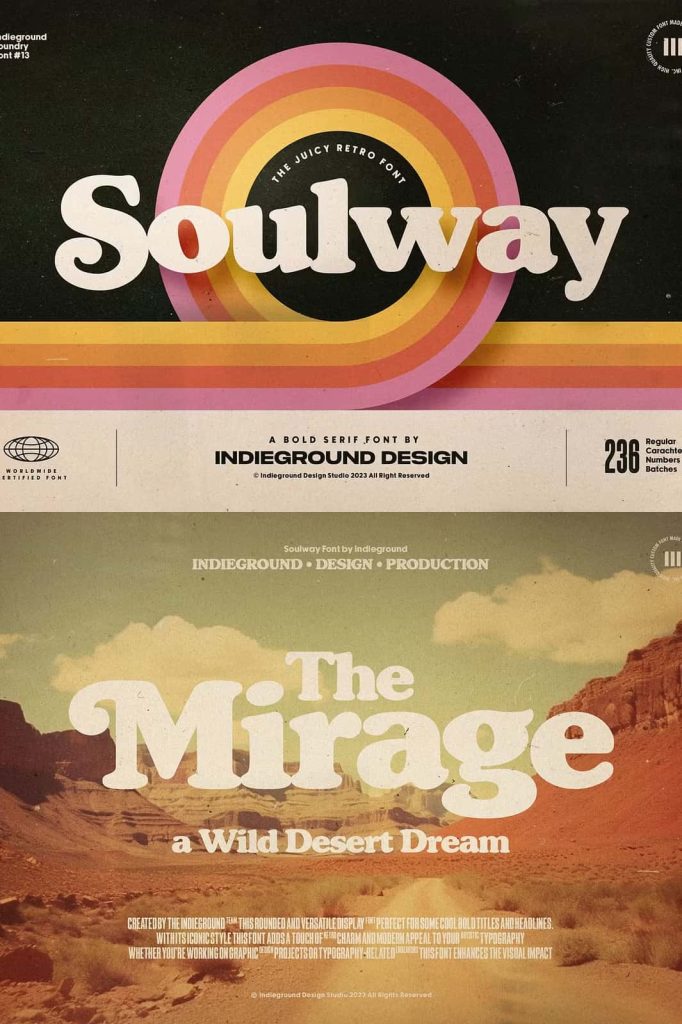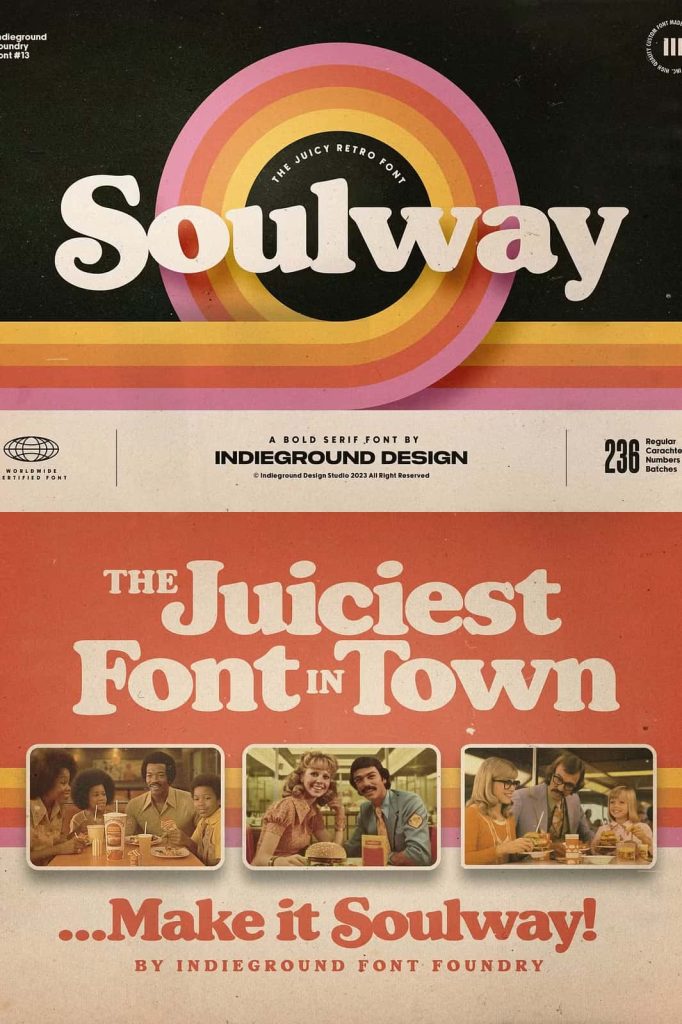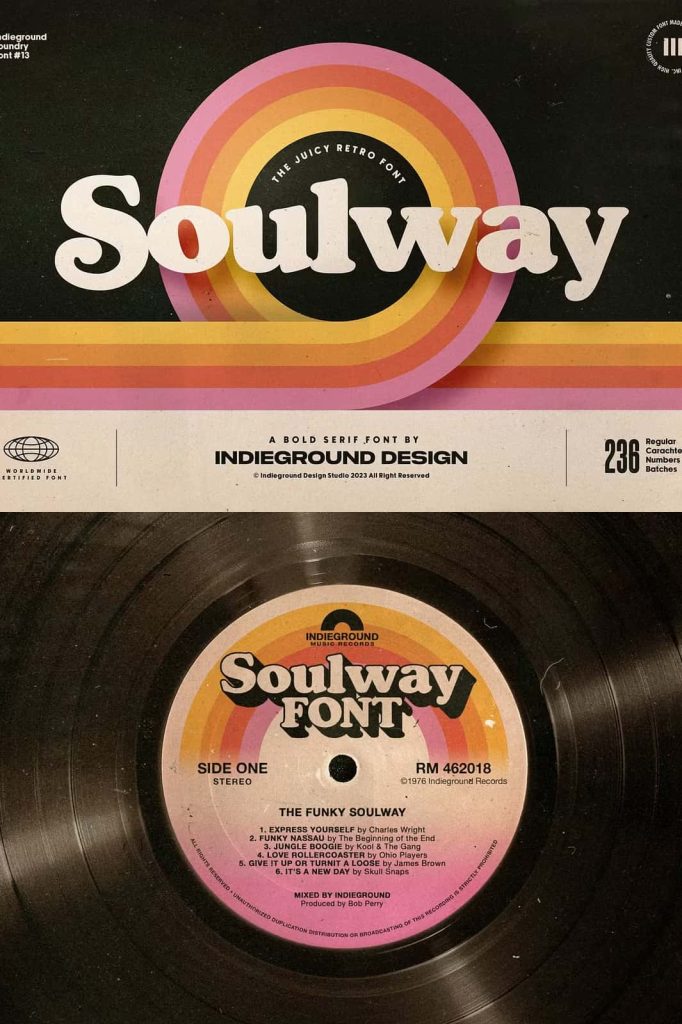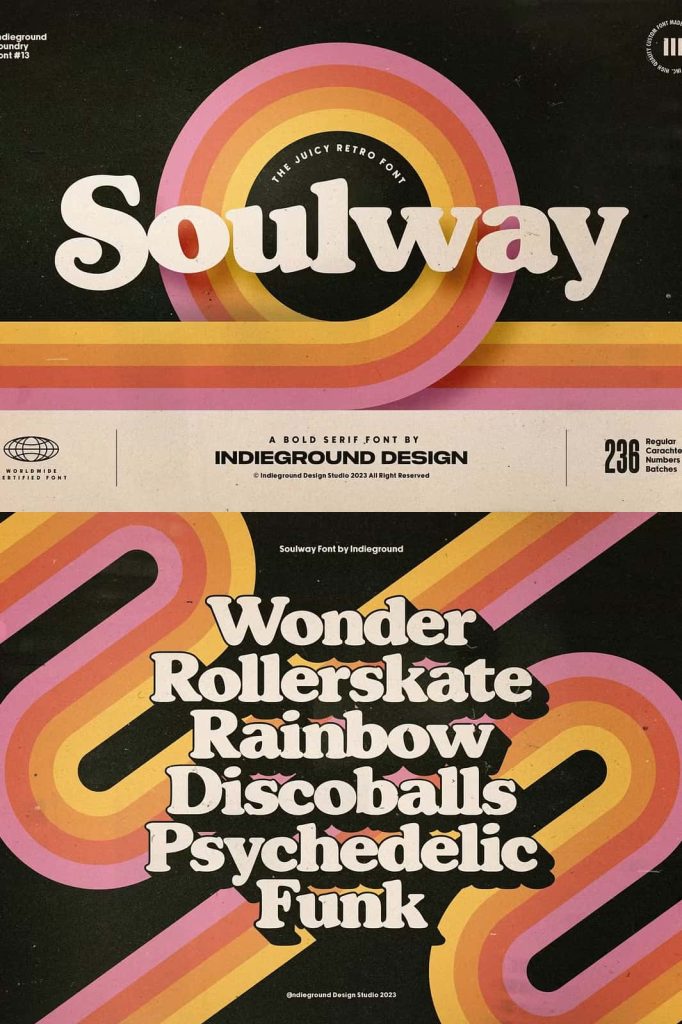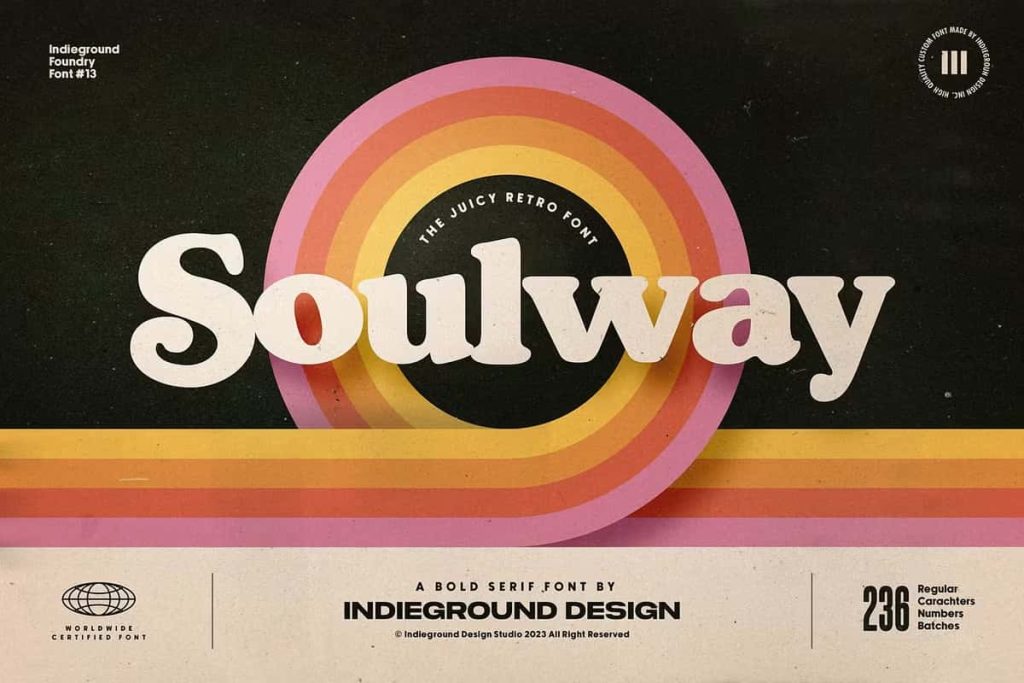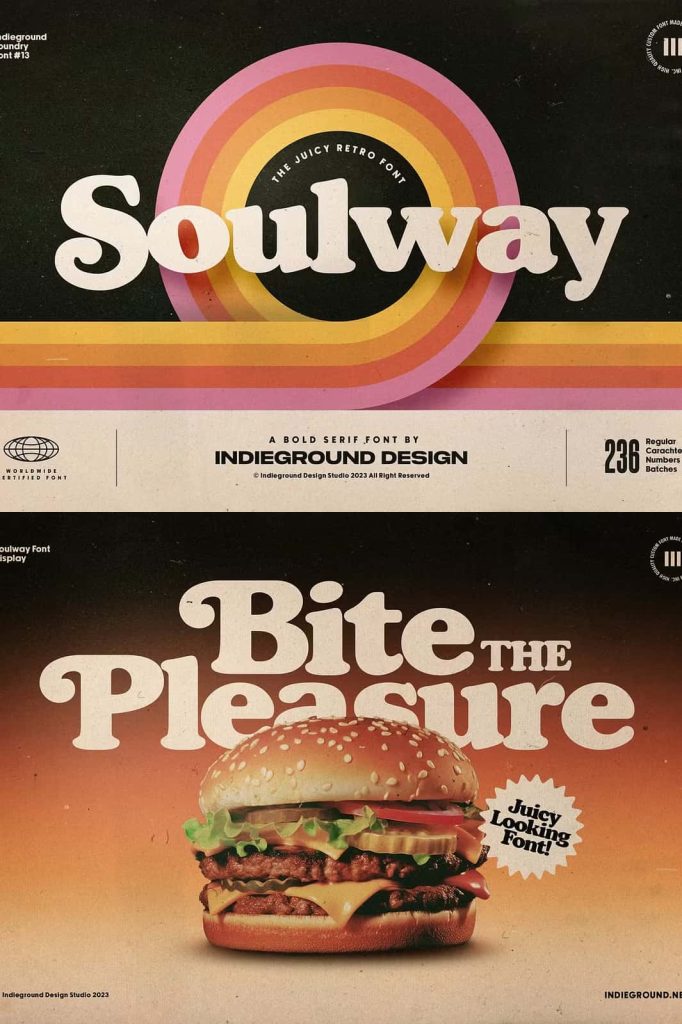
Soulway Font: A Bold Curvy Serif Font Inspired by 70s Retro Atmospheres
Soulway Font by Indieground is a bold and expressive serif display font that channels the unmistakable spirit of 1970s design. With its curvy letterforms, confident weight, and nostalgic energy, Soulway brings retro typography back to life in a way that feels both authentic and creatively liberating. This typeface is designed for designers who want to infuse their projects with warmth, personality, and a strong vintage mood.
Inspired by one of the most iconic typefaces of the last century, Soulway captures the essence of an era defined by bold expression, experimental design, and rich visual culture. It invites you to explore playful compositions, dramatic headlines, and eye-catching typography that instantly connects with viewers.
Inspired by Iconic 1970s Typography
The 1970s marked a golden age for expressive typography, where designers embraced bold shapes, rounded forms, and confident curves. Soulway Font draws directly from this era, translating its visual language into a modern display typeface that feels familiar yet fresh.
The curvy serif structure reflects classic retro aesthetics, while refined proportions ensure that the font performs well in contemporary design environments. This balance allows Soulway to evoke nostalgia without feeling outdated, making it suitable for both digital and print applications.
Bold Curves That Define Retro Character
Soulway’s defining feature is its bold, rounded curves. These shapes create a sense of movement and energy that feels playful and inviting. The font’s generous weight ensures strong visibility, while the smooth curves add softness and warmth. Together, these elements form a distinctive retro character that stands out in any layout.
Regular and Shadow Versions for Creative Impact
Soulway Font comes in both regular and shadow versions, giving designers additional creative flexibility. The regular style works beautifully for clean, bold headlines and titles, while the shadow version adds depth and dimensionality to typography.
This combination allows designers to create layered effects, dramatic compositions, and visually rich designs without relying on extra graphic elements. The shadow style is especially effective for posters, album covers, and promotional artwork where strong visual impact is essential.
Perfect for Nostalgic Artwork and Print Design
Soulway excels in nostalgic artwork that aims to capture a vintage mood. It works exceptionally well for album covers, posters, flyers, and editorial headlines where typography plays a central role. The font’s bold presence anchors compositions and instantly sets a retro tone.
Designers can use Soulway to recreate classic design aesthetics or to reinterpret them in new and unexpected ways. Its expressive nature encourages experimentation and creative exploration.
Ideal for Album Covers, Posters, and Flyers
Music-related projects benefit greatly from Soulway’s retro personality. Album covers, gig posters, and promotional flyers gain emotional depth and authenticity when paired with this bold serif font. Soulway reinforces themes of nostalgia, creativity, and cultural expression, making it a natural choice for music, art, and entertainment design.
Standout Typography for Social Media Content
Soulway Font is also ideal for crafting standout typography for social media feeds. In fast-scrolling environments, bold and distinctive lettering is essential, and Soulway delivers exactly that. Its thick strokes and curvy shapes ensure text remains readable and visually engaging, even at smaller sizes.
Designers can use Soulway to create nostalgic quotes, promotional graphics, and branded content that captures attention instantly. The font’s retro charm helps content feel memorable and emotionally resonant.
A Typeface That Lets Creativity Flow
Thanks to its classic curvy nature, Soulway encourages designers to explore playful layouts and expressive compositions. The font feels lively and unrestricted, allowing creativity to flow naturally. It brings back the juicy, warm atmospheres associated with retro design and translates them into modern visual storytelling.
Whether used as a headline font or a central design element, Soulway adds personality and character that elevate creative work.
Retro Energy with Modern Versatility
Soulway Font by Indieground combines retro inspiration with modern usability. It adapts seamlessly across different platforms and design contexts, from large-format print to digital media. Its versatility makes it a valuable addition to any designer’s font collection.
If you are looking for a bold, curvy serif font that captures the soul of the 1970s while supporting contemporary design needs, Soulway Font offers a powerful and nostalgic solution. It brings vintage energy, creative freedom, and timeless appeal to every project.